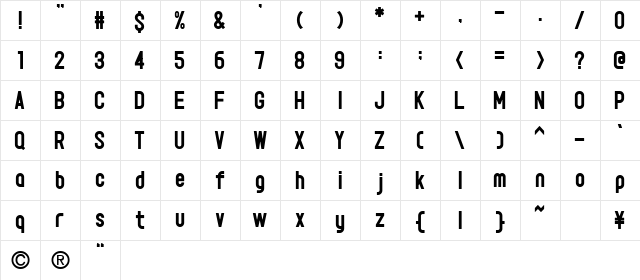
71mksd1 ab
Design Context for 71mksd1 Typeface
71mksd1 is a composed and adaptable typeface that performs quietly and consistently across a wide range of design contexts.